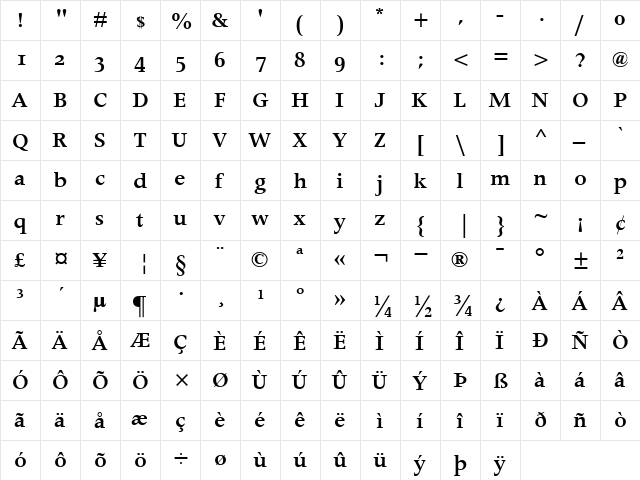
Apollo MT Bold Font Preview
Apollo MT Bold
Apollo MT Bold Font Details
Design Context for Apollo MT Typeface
Apollo MT offers clean, dependable letterforms without strong stylistic allegiance, making it a practical choice for designers who need flexibility. Its bold stroke weight gives it real presence on the page.